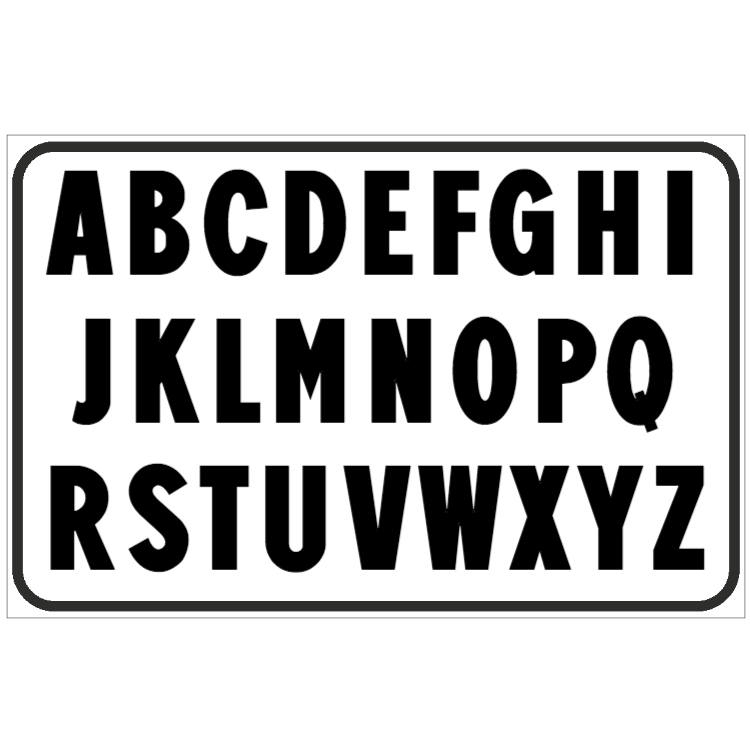
Font used in Italy for road signs.
According to this site, it is called Alfabeto Stretto, a condensed version of the British highway signage typeface Transport.